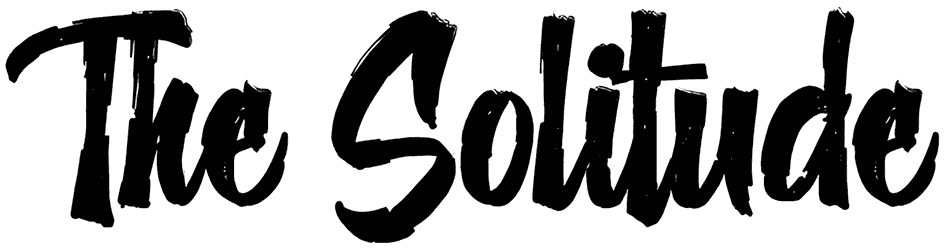
The Solitude Font
It would be a plausible idea to utilize a horror font such as The Solitude in the user interface of video games, movie posters, digital banners, and online ads to convey a sense of dread, excitement, innovation, and dyna…
Designed byOctotype Thomas Boucherie
It would be a plausible idea to utilize a horror font such as The Solitude in the user interface of video games, movie posters, digital banners, and online ads to convey a sense of dread, excitement, innovation, and dynamic to the audience, also boost the efficiency of artwork. Its wavy and crooked design would help your graphic content engage viewers at first glance.